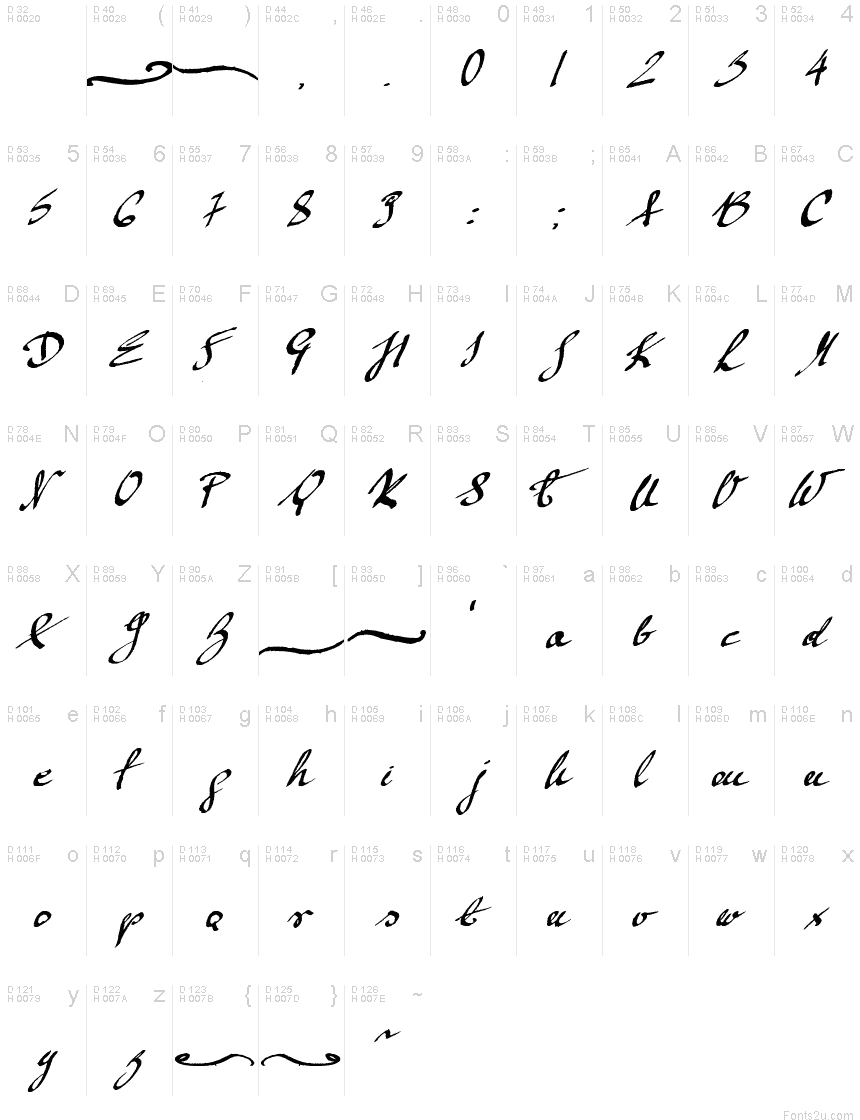
Mickey Script 1.20 by Aga Silva is a free brush script with forceful, sharply slanted lettering and pronounced shifts between broad strokes and fine, sweeping lines. Its ragged edges and quick changes of direction give the forms the raw texture of ink dragged across paper.
Music branding is its strongest use, particularly for album artwork and concert posters built around a restless, handmade attitude. It also suits fashion campaigns and sports merchandise. In each setting, the sweeping forms can function as a signature-style brand mark rather than neutral lettering.